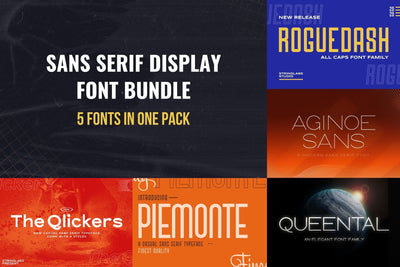
Sans Serif Display Font Bundle
Introducing Sans Serif Display Font Bundle. This font bundle contains 5 high quality sans serif fonts with unique styles. This font bundle also has multilingual and modern style that will make your design look outstanding and cool.
FONTS INCLUDED :
1. The Qlickers
2. Piemonte
3. Aginoe Sans
4. Roguedash
5. Queental